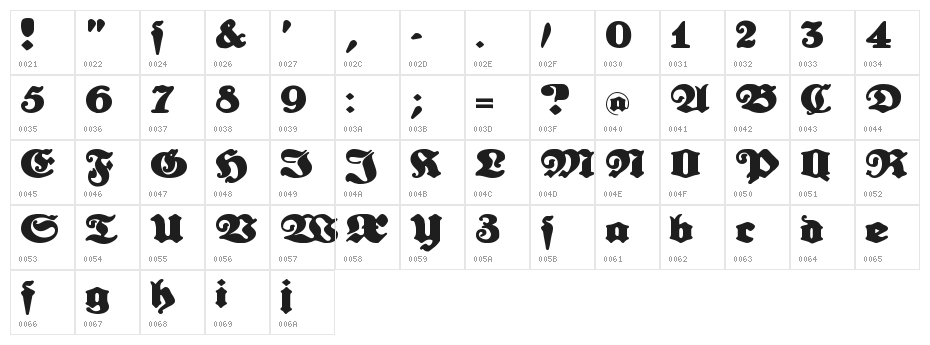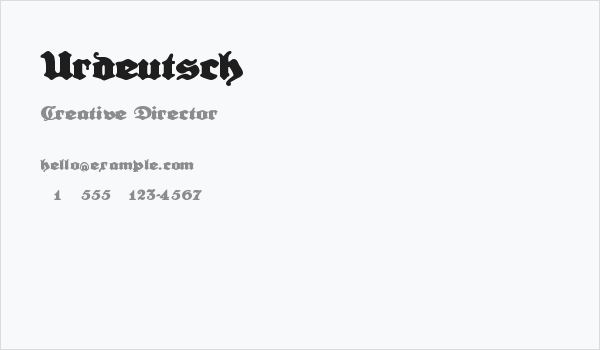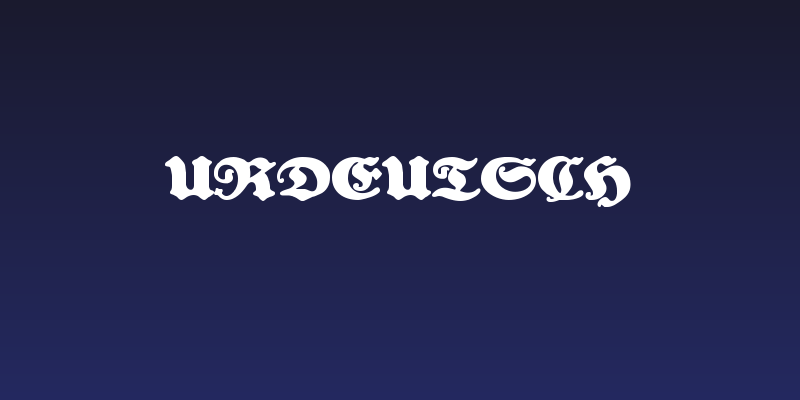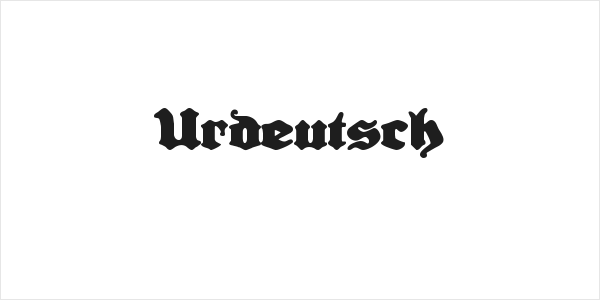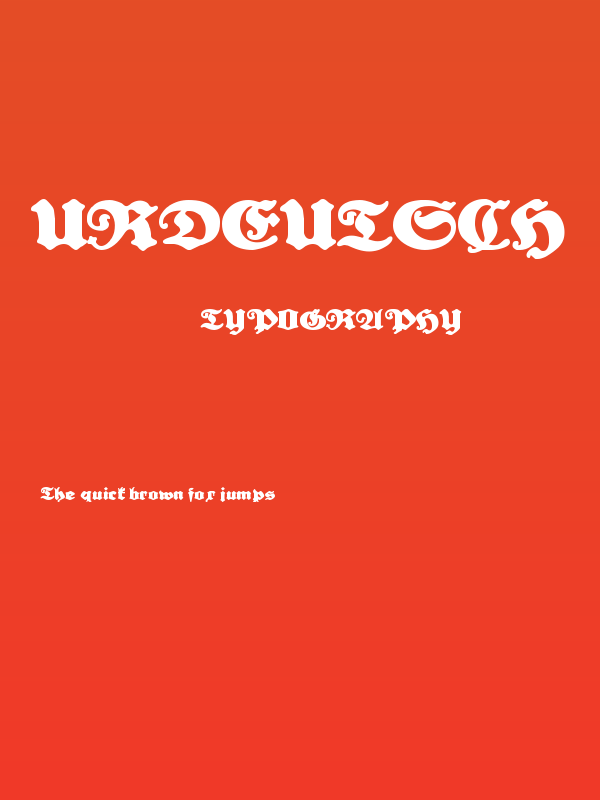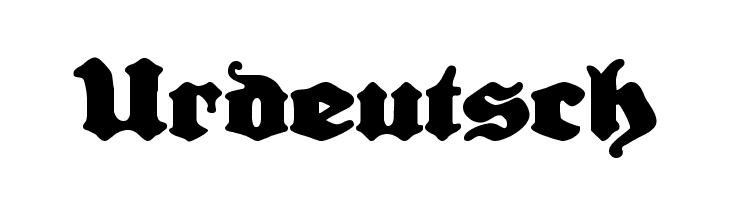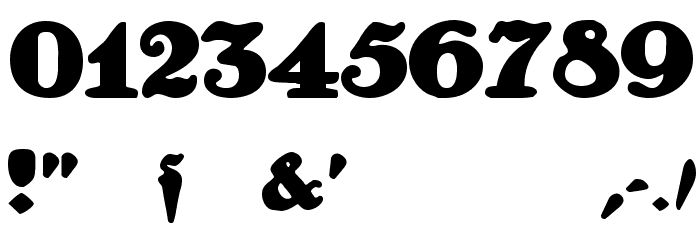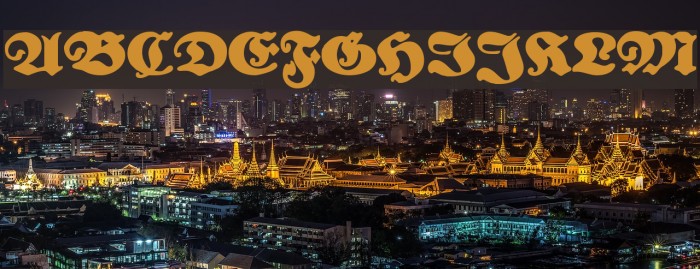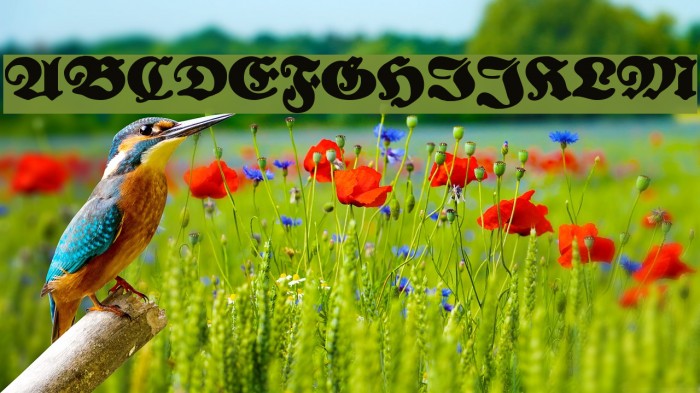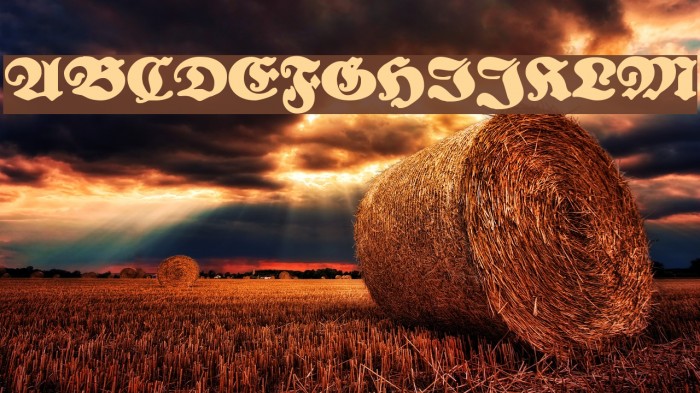
Urdeutsch Font
Urdeutsch Description
This font embodies a traditional and ornate style reminiscent of historic European script. The characters are intricately designed with sharp edges and elaborate curves, giving them a distinct and bold appearance. The uppercase letters are particularly striking, with flourishes that extend beyond the baseline, while the lowercase letters maintain a consistent style with slightly less ornamentation. The numbers are bold and clear, matching the overall aesthetic of the font. Special characters are uniquely styled, adding to the font's decorative appeal. This font is ideal for projects that require a touch of elegance and historical flair.
URDEUTSCH UPPERCASE
URDEUTSCH LOWERCASE
URDEUTSCH OTHER CHARS
| Use Case | Headlines, Logos, Decorative text |
| Proposed Projects | Ideal for historical documents, invitations, certificates, and branding that requires a classic and elegant touch. |